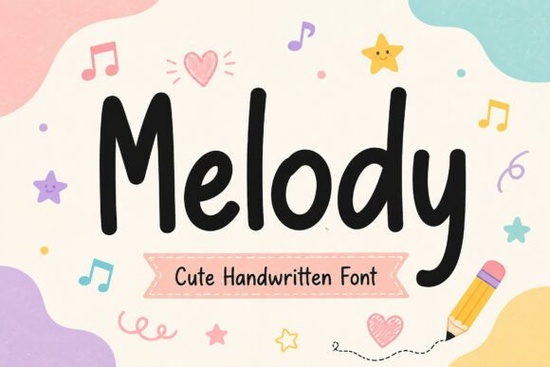
Looking for a font that brings a sense of warmth and playfulness to your designs? The Melody Font is a perfect choice for anyone who wants to add a touch of charm to their creative projects. With its soft, handwritten style, this font feels like it was drawn by hand, making it ideal for a wide range of applications. Whether you're working on children's books, social media graphics, or custom merchandise, Melody adds a friendly and approachable look that stands out.
What Makes Melody Stand Out?
Melody’s charm comes from its smooth, hand-drawn strokes and friendly letterforms. Unlike more rigid typefaces, this font feels natural and easy to read, even when used in larger sizes. This makes it a great choice for projects that require both visual appeal and readability, such as printable worksheets, greeting cards, or social media posts.
Its versatility means it can be used across different mediums. For example, if you’re creating digital content, you can use it for YouTube thumbnails or Instagram posts. If you're into physical crafts, it works well with Cricut or Silhouette machines for stickers, labels, or custom apparel. The font also pairs well with other styles, allowing you to mix and match for more dynamic designs.
Who Can Benefit from Using Melody?
Designers, crafters, and small business owners will find Melody particularly useful. It’s an excellent tool for those who want to create personalized products, whether for print-on-demand platforms or handmade items. Its playful nature makes it especially appealing for brands targeting children or families, such as nursery decor, kids’ books, or educational materials.
Teachers and educators may also appreciate using Melody for classroom resources, like flashcards, posters, or activity sheets. The font’s friendly appearance can make learning materials more engaging for students. Additionally, it’s a great option for DIY enthusiasts who enjoy creating custom designs for personal or commercial use.
Examples of Projects You Can Create with Melody
- Kids' Book Covers: Add a whimsical touch to storybooks or picture books.
- Greeting Cards: Create heartfelt or fun messages for birthdays, holidays, or special occasions.
- Social Media Graphics: Use it for quotes, captions, or promotional banners.
- Craft Projects: Apply it to custom t-shirts, mugs, or phone cases using Cricut or Silhouette machines.
- Printable Designs: Offer downloadable templates for planners, calendars, or party invitations.
Whether you're a designer, a crafter, or a small business owner, the Melody Font is a valuable addition to your toolkit. Its unique style and ease of use make it a go-to choice for a wide range of creative projects. Try it out and see how it can bring a touch of joy and creativity to your work.